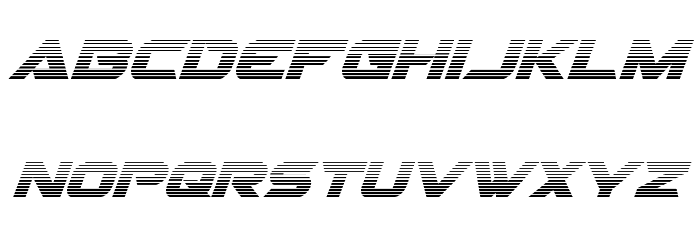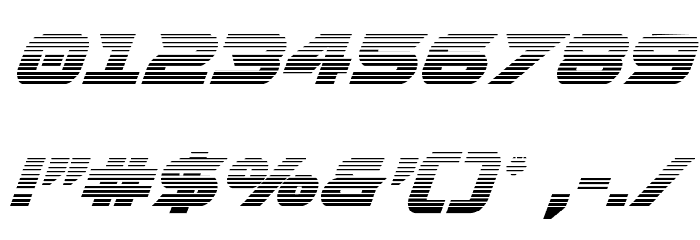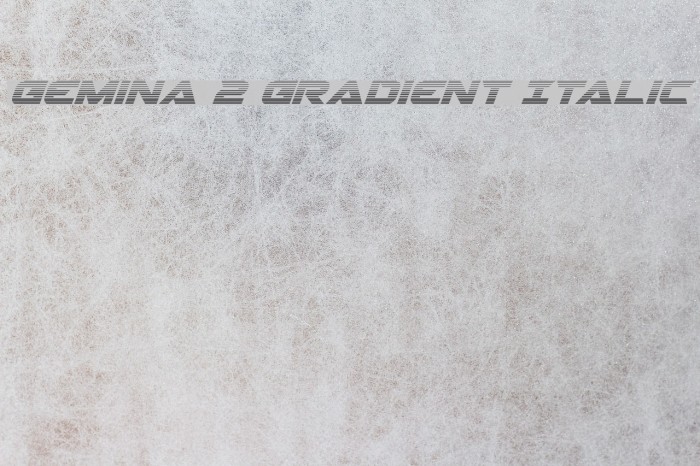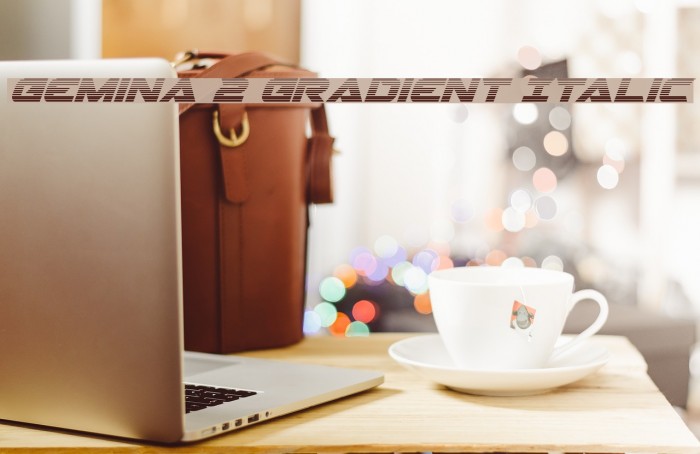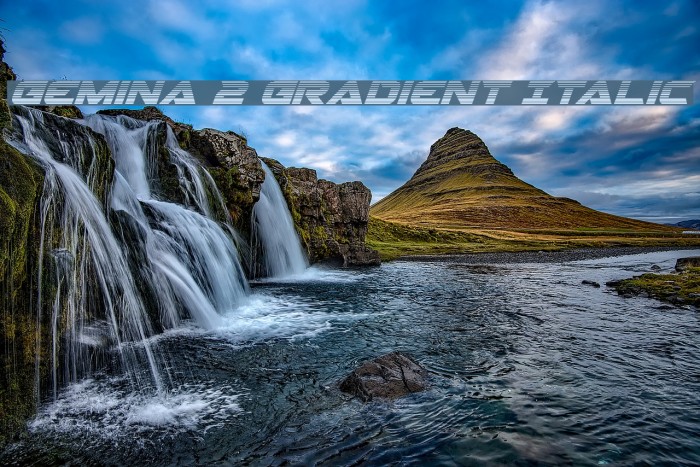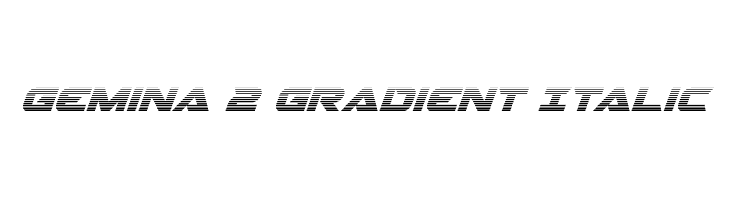
Gemina 2 Gradient Italic Font
This font features a dynamic, futuristic design with a distinct italic slant. Each character is composed of horizontal lines that create a gradient effect, giving the font a sense of motion and speed. The uppercase and lowercase letters maintain a consistent style, with sharp angles and clean lines. The numerals and special characters are equally stylized, ensuring a cohesive look across all elements. This font's unique structure makes it stand out, ideal for projects that require a modern and edgy aesthetic.
A futuristic italic font with gradient lines and a dynamic, speedy appearance.
- Proposed Projects: Ideal for technology branding, sci-fi themed designs, video game titles, and modern advertising campaigns.